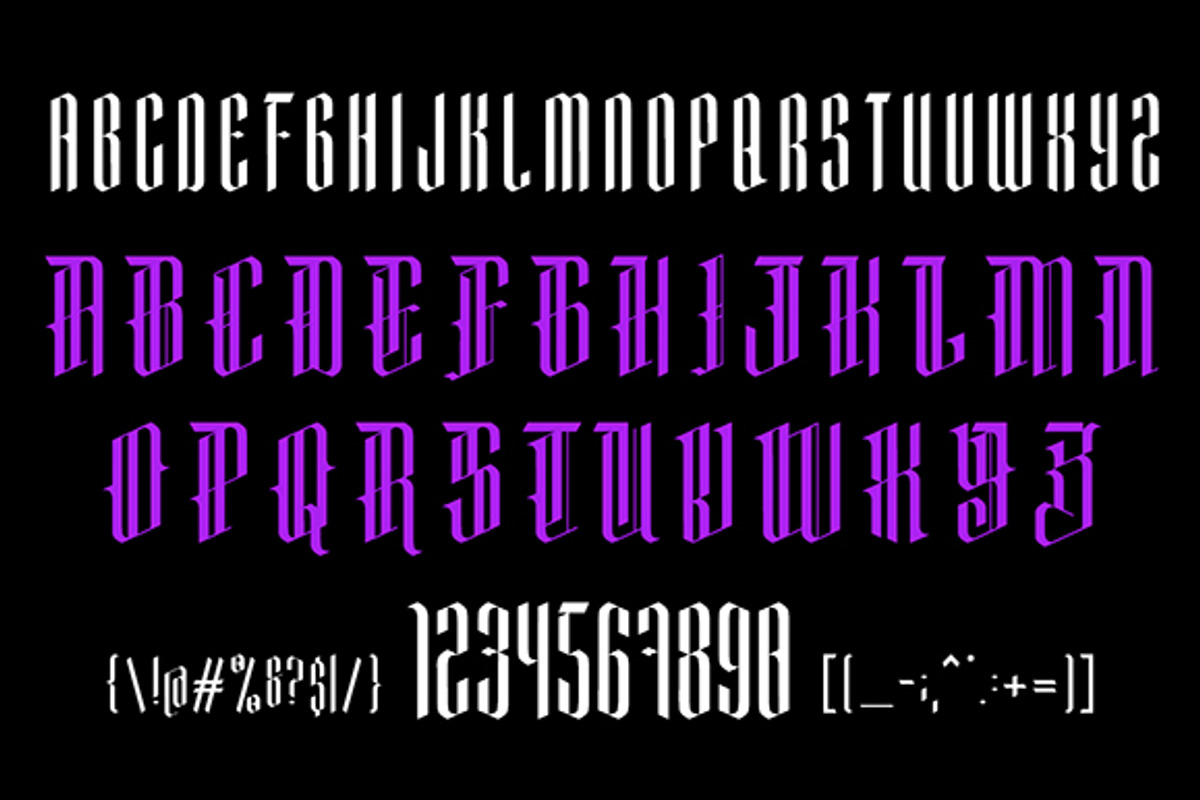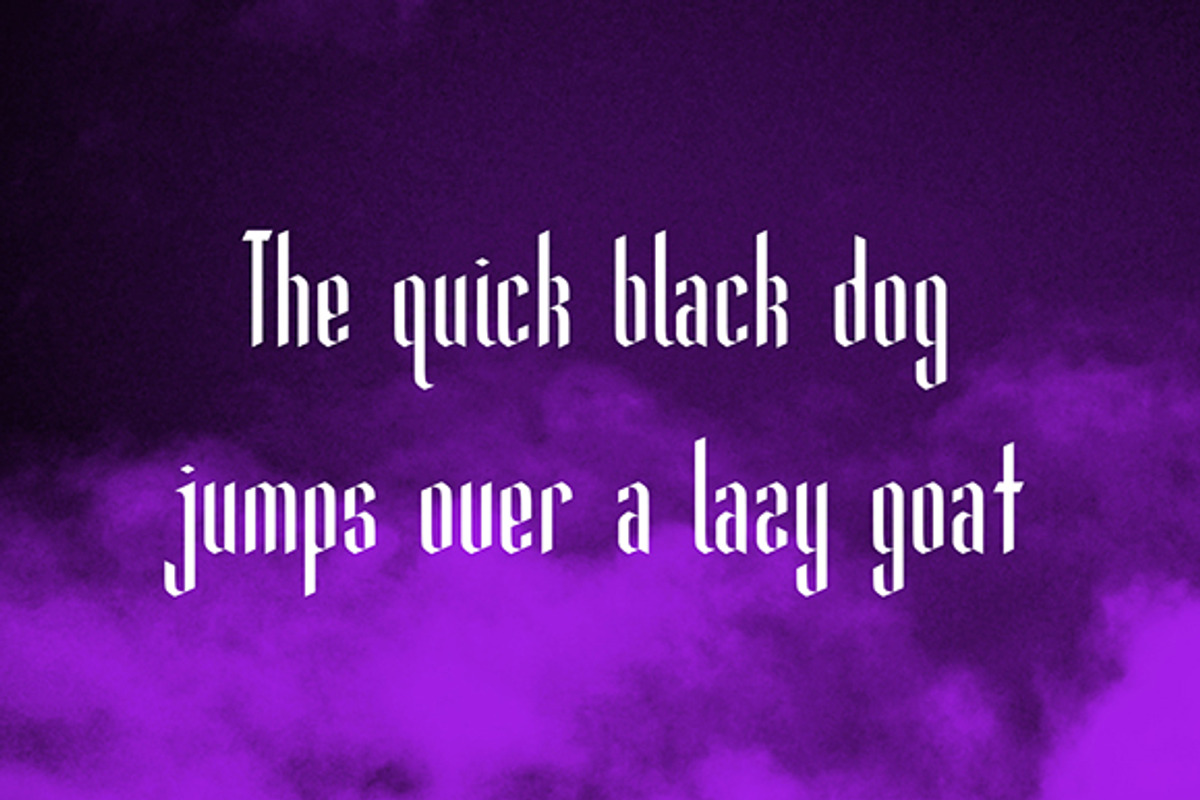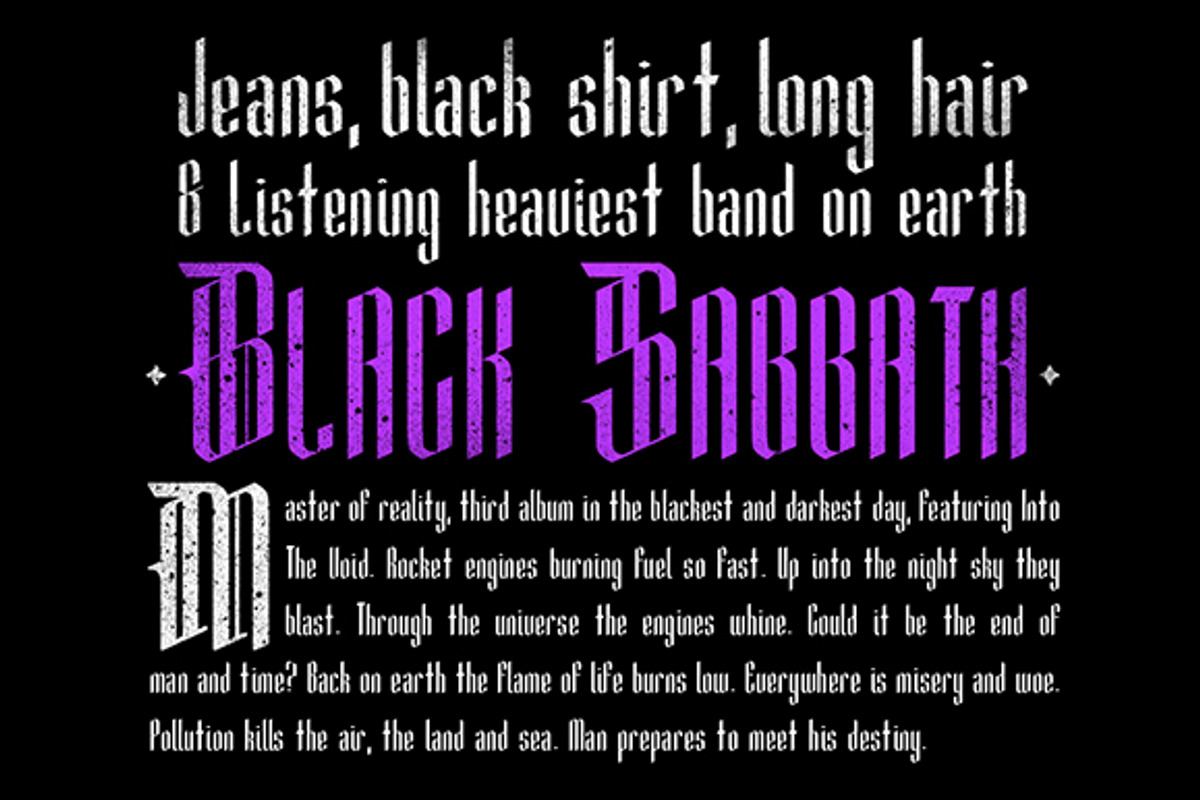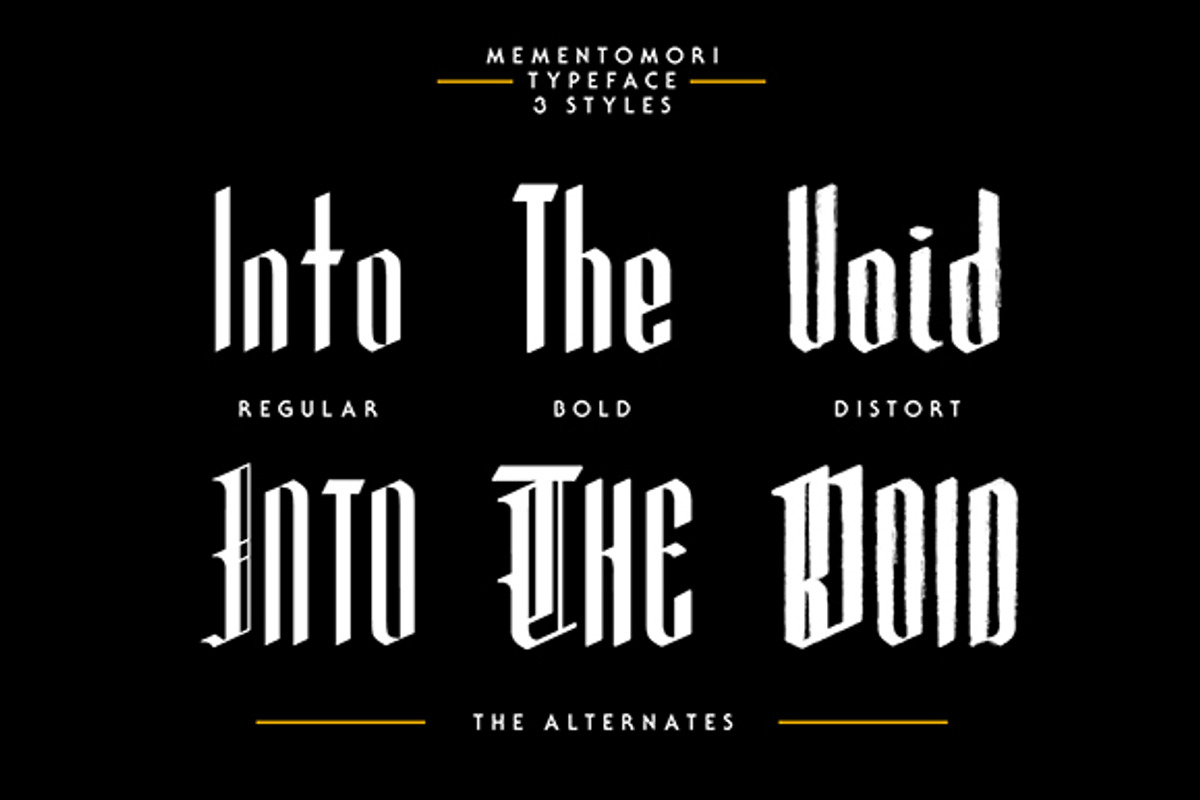
Mementomori Typeface
Mementomori Typeface by Adhreza is a font selected for branding, posters, packaging, typography.
Mementomori Typeface by Adhreza fits naturally into Branding, posters, packaging, typography.